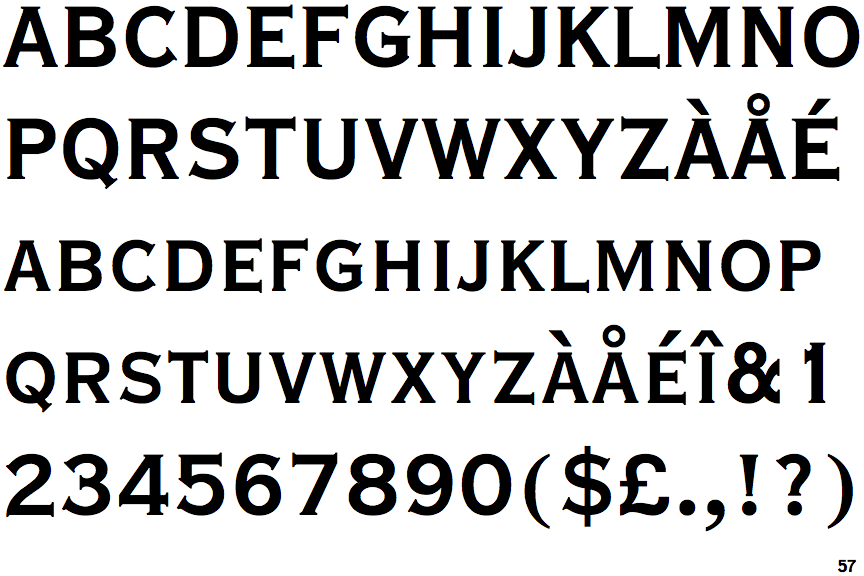
Font Copperplate Gothic Bold
You can use the copperplate gothic bold to create interesting designs, covers, shop and store name. The font name reflects the popularity of this particular style of typeface during the time that copperplate engraving was a popular technique for reproducing illustrated material;. By downloading the font, you agree to our terms.
Copperplate Gothic Bold / Regular Font Family.